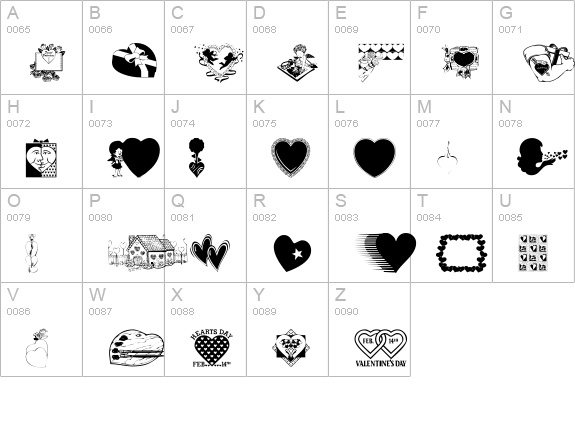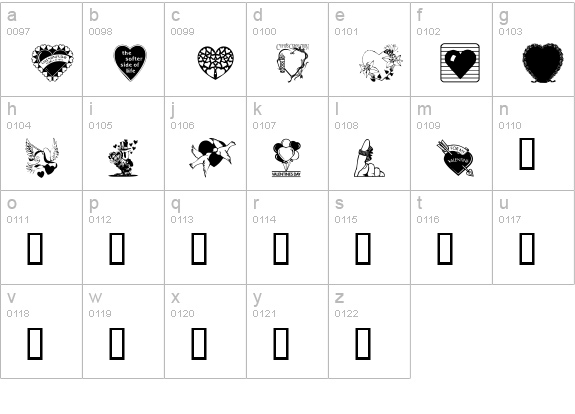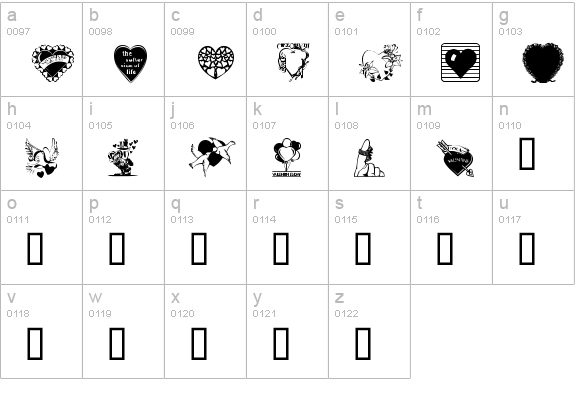
LM Valentines 1 Font Details
LM Valentines 1 font is a beautifully crafted typeface that exudes charm and elegance, perfect for adding a touch of romance to your projects. With its delicate strokes and intricate details, this font is sure to captivate your audience and convey a message of love and affection. Whether you're designing a Valentine's Day card, wedding invitation, or any other project that requires a touch of sweetness, LM Valentines 1 font is the ideal choice. The best part? LM Valentines 1 font is available for free download at FontsMarket.com, making it easily accessible to all designers and creatives looking to add a touch of love to their work. Don't miss out on this gorgeous font that will elevate your designs and bring a sense of romance to any project. Download LM Valentines 1 font today and spread the love with every letter you create.